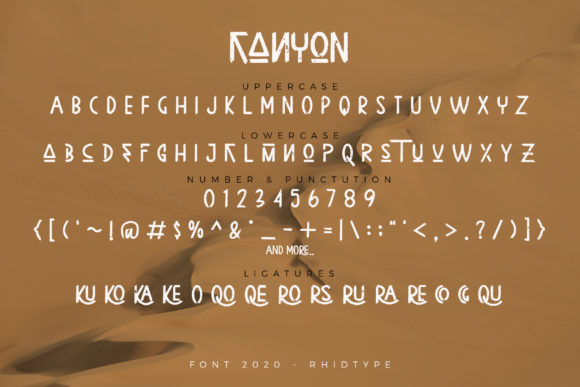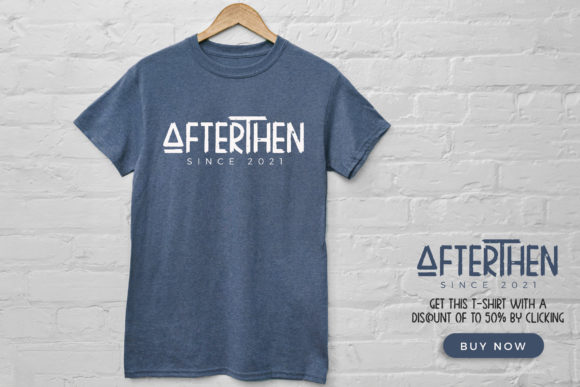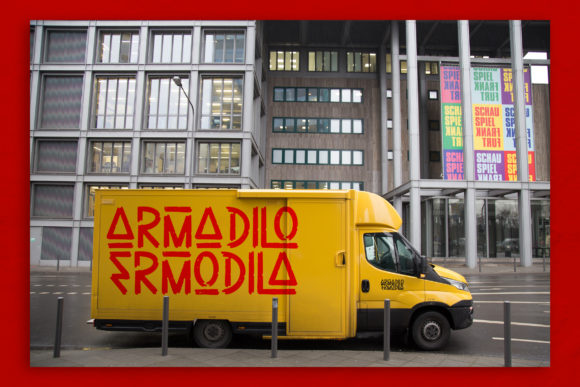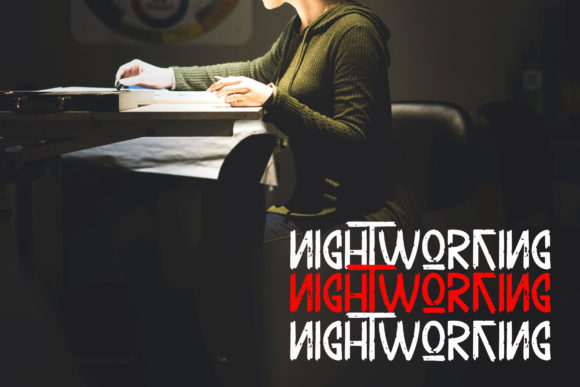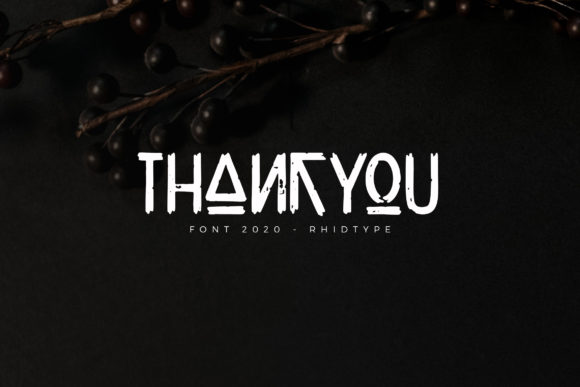
Introduction to Kanyon Font
Kanyon is a stylish and incredibly unique display font.
| 👤 Author | RHIDTYPE |
Add this interestingly shaped font to your designs and notice how it makes them come alive .
Key Features of Kanyon Font
Why Choose Kanyon Font?